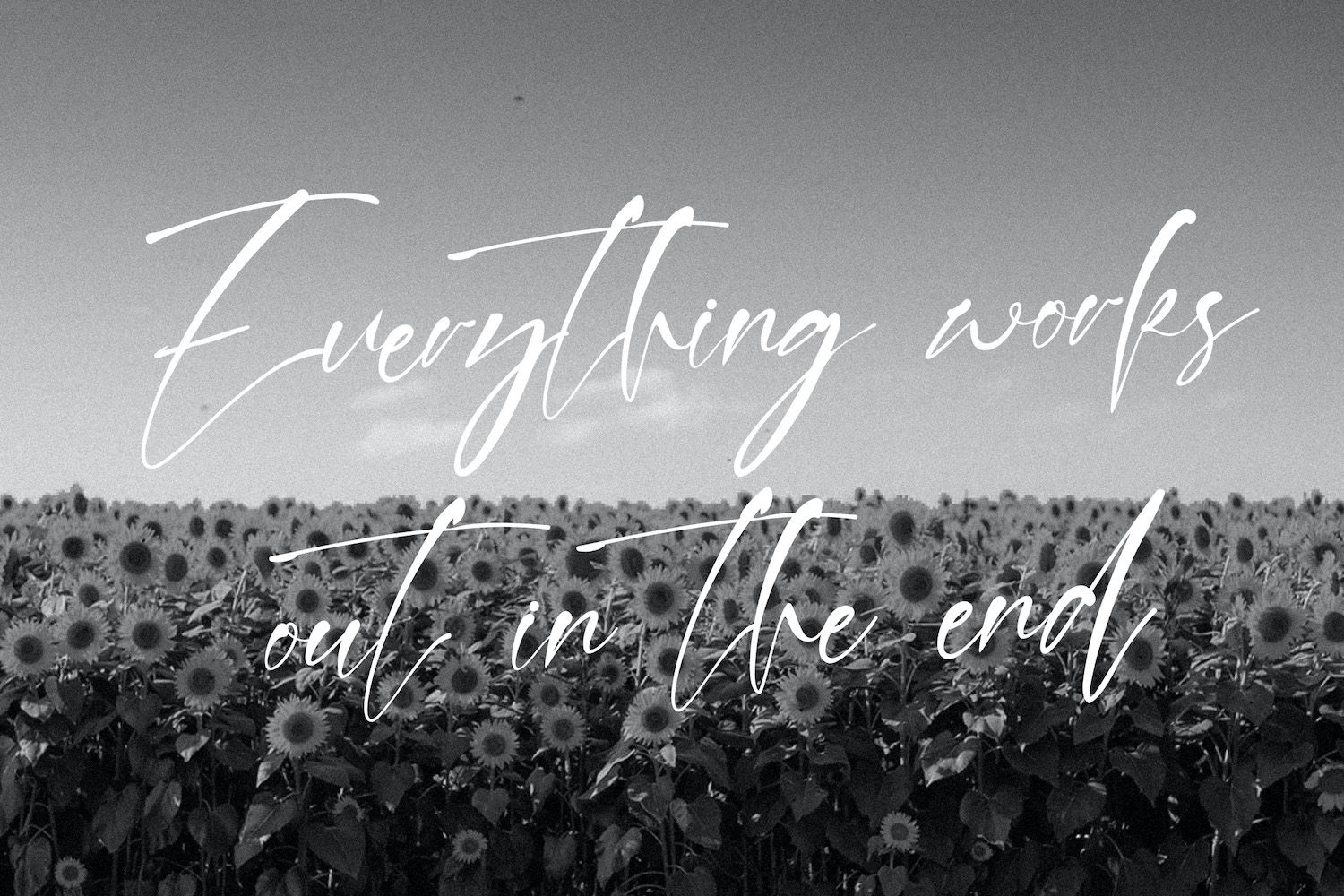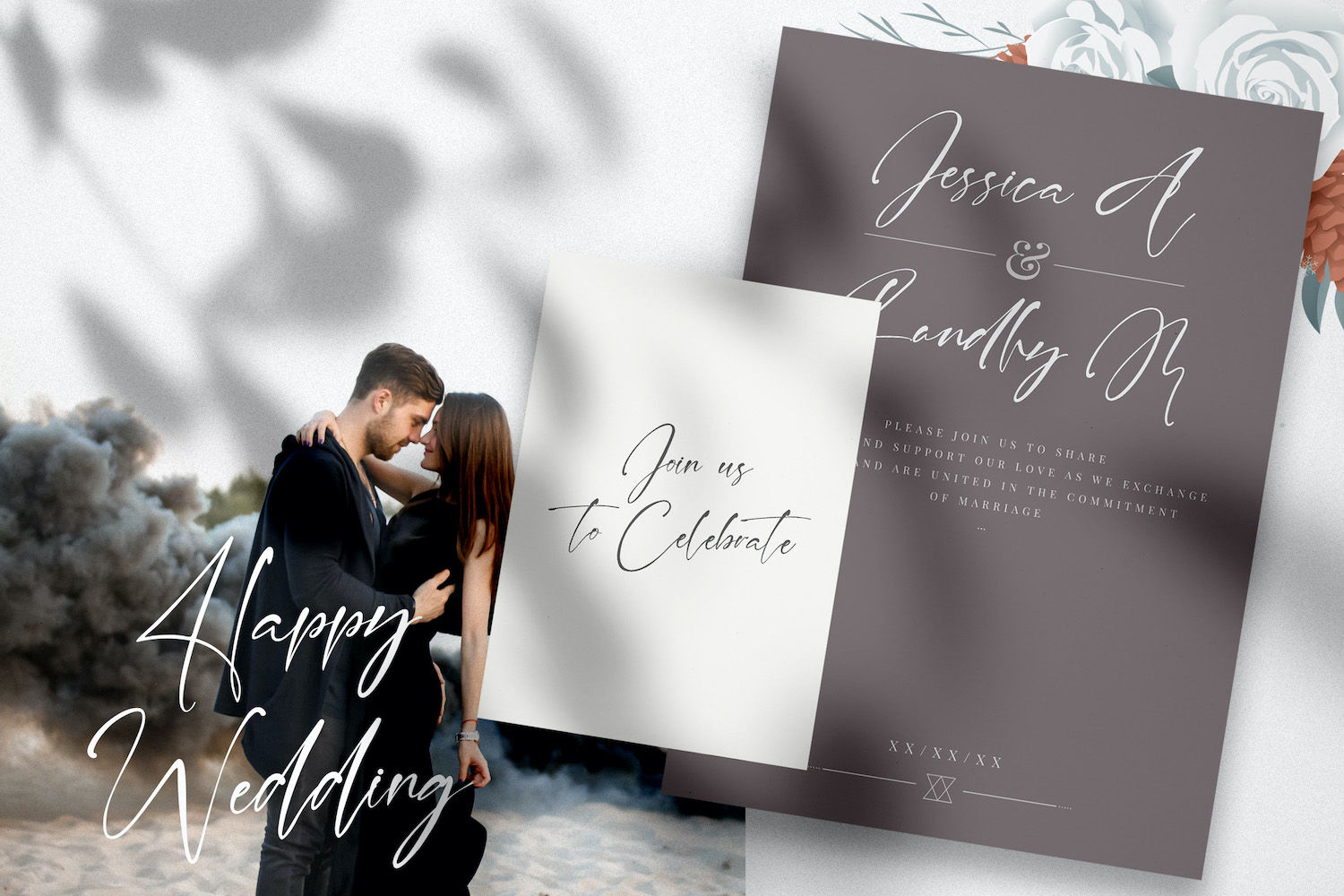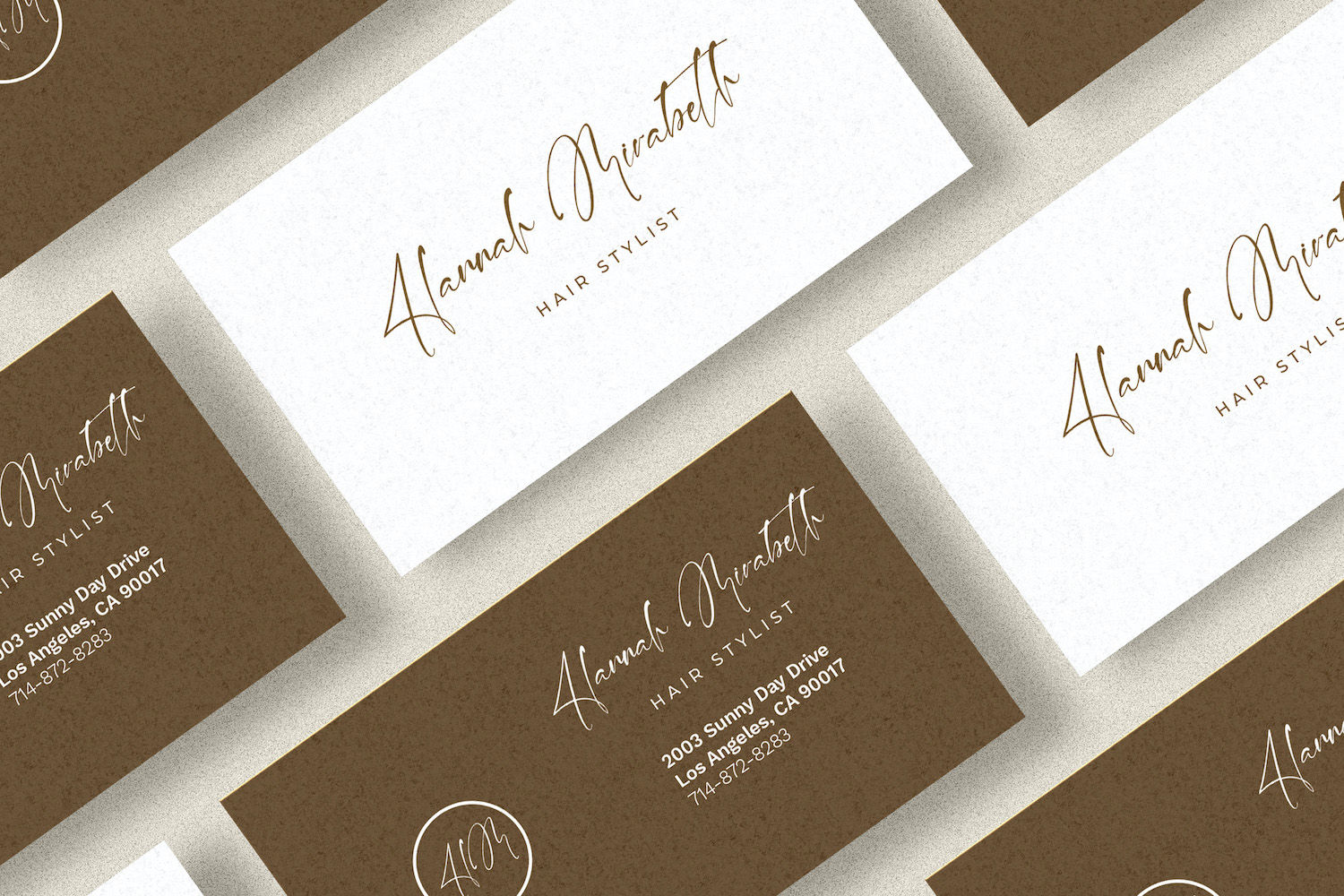
From romantic wedding suites and boutique logos to social media quotes and modern poster headlines, Cinta Sehatti is a modern signature script that brings a calm, intimate handwritten feel to any design. Its tall, airy letterforms, sweeping capitals, and clean strokes create an elegant “written by hand” impression without looking messy—ideal when you want your words to feel personal, warm, and premium.
It shines in projects like wedding invitations & save-the-dates, beauty/fashion branding, packaging labels, album/cover art, event posters, café signage, and highlight text for Instagram/TikTok creatives. It’s best avoided for long paragraphs, small UI text, dense price lists, instructional/technical layouts, or anything that must stay highly legible at tiny sizes—this font is designed to be seen and felt, not to carry body copy. Cinta Sehatti works especially well because of its expressive uppercase swashes, smooth handwritten rhythm, and built-in ligatures that help certain letter combinations flow more naturally, giving your typography a polished, intentional finish.
For the cleanest results, keep it as a display font (titles, names, short phrases), pair it with a simple sans-serif for supporting text, and give it room to breathe with generous line spacing (swashes can overlap if lines are tight). On photos, add a subtle dark overlay or a soft shadow/outline so the strokes stay crisp. If a word looks a little loose or tight, don’t hesitate to manually adjust tracking/spacing—small tweaks make script lettering look instantly more “custom.”